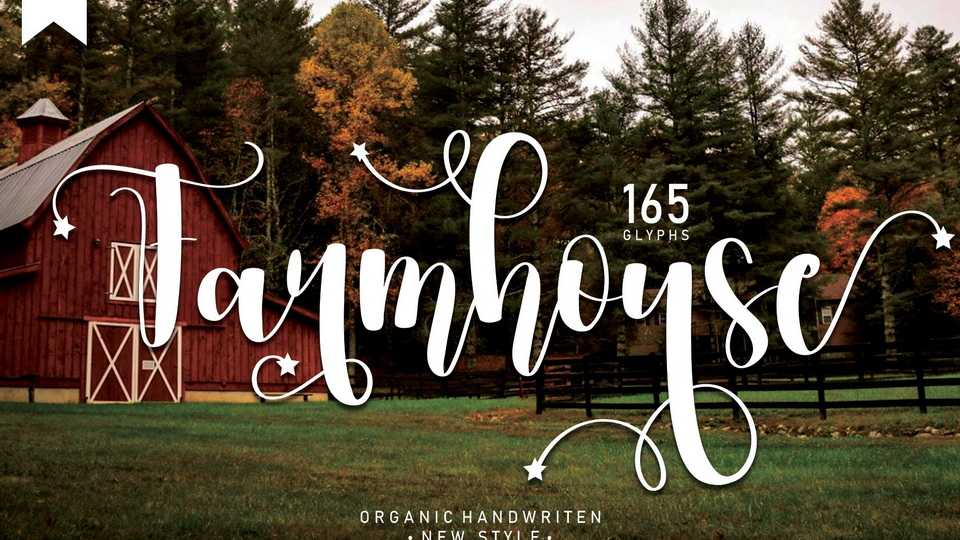
Download Farmhouse font, a romantic and sweet calligraphy typeface with characters that dance along the baseline. Farmhouse font is perfect for wall displays, wedding invitations, social media, logos, advertisements, product packaging and more.